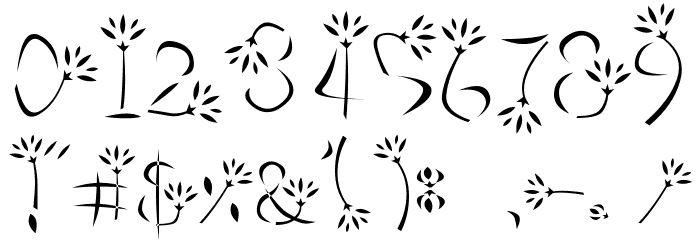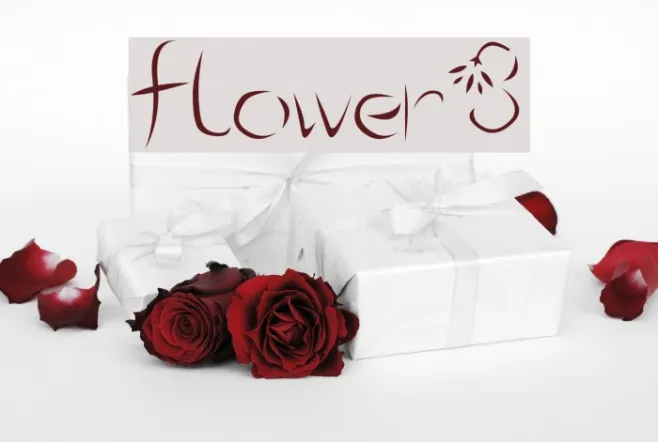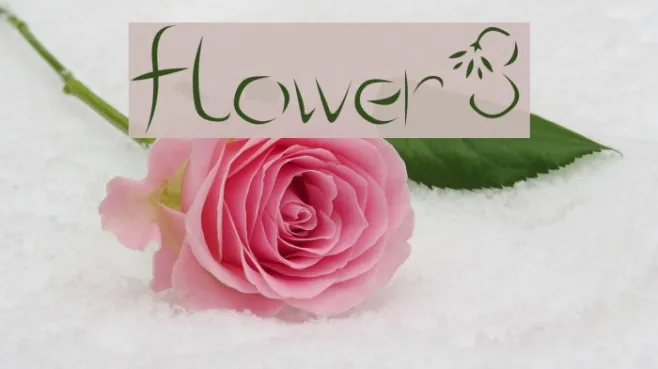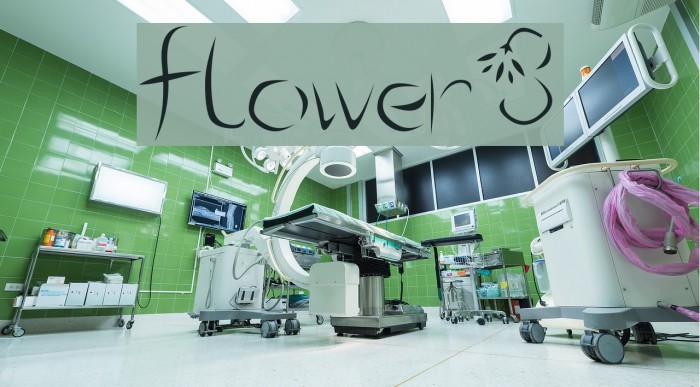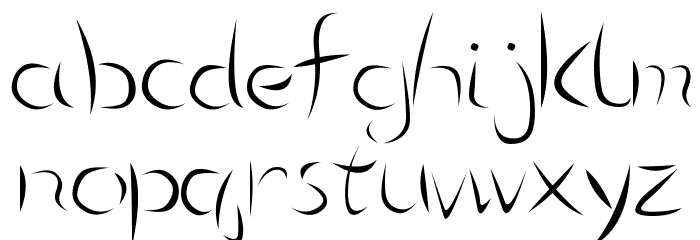
flower3 Font
flower3 Description
This font features a unique and artistic design where each character is adorned with floral elements, giving it a whimsical and decorative appearance. The letters are crafted with a combination of smooth curves and sharp edges, creating a dynamic and lively feel. The floral motifs are integrated into the structure of the characters, enhancing their visual appeal and making them stand out. This font is perfect for projects that require a touch of nature and creativity, offering a refreshing alternative to traditional typefaces. Its playful yet elegant style makes it suitable for a variety of design applications.
| Use Case | Headlines, Logos, Artistic projects |
| Proposed Projects | Ideal for wedding invitations, greeting cards, nature-themed branding, and artistic posters. |